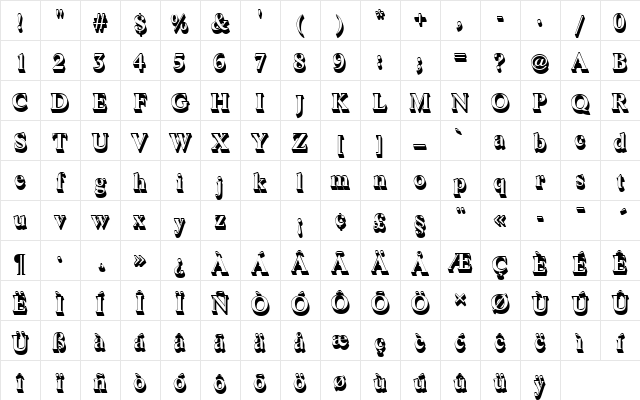
LifeTBolSh1 Regular
Design Context for LifeTBolSh1
LifeTBolSh1 is a composed and adaptable typeface that performs quietly and consistently across a wide range of design contexts.